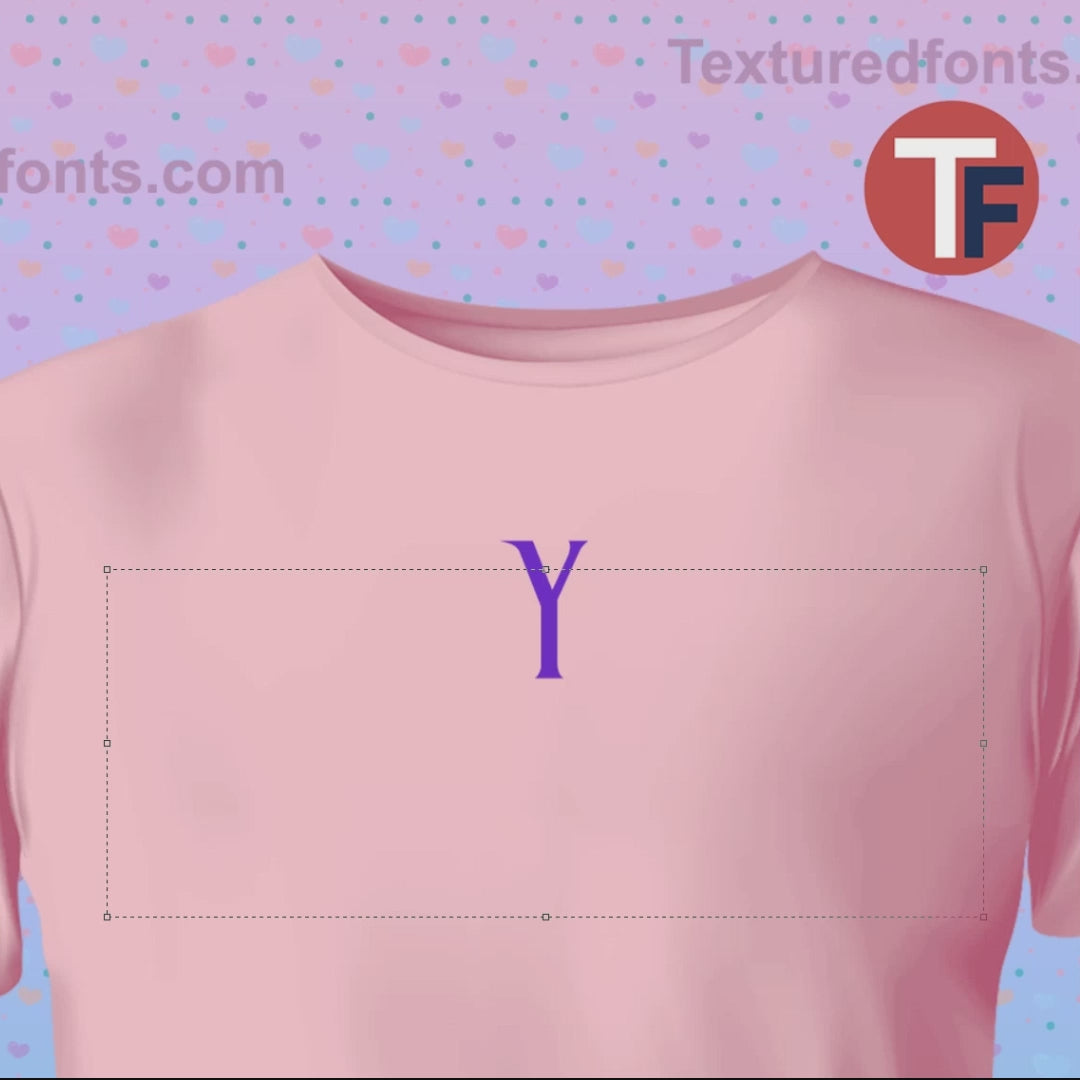
Mystical Chaos Font
Mystical Chaos Font: A Portal to Enchanted Design
Delve into the mystical with the Mystical Chaos font, inspired by the enchanting allure of ancient magic and sorcery. This typeface, reminiscent of arcane texts and eldritch symbols, is perfect for projects channeling the supernatural and the arcane. Whether crafting spellbinding visuals for fantasy media or creating enchanting event invitations, the Mystical Chaos font infuses every design with a touch of mystery. Each character is intricately designed to evoke old-world magic, combining sharp angles and flowing curves to mimic the unpredictable nature of sorcery. The complete character set ensures versatility, making it ideal for various applications—from book covers to digital content—where the mystical meets the modern.
Application and Customization
Mystical Chaos shines in various creative contexts:
- Fantasy Book Covers: Design captivating titles that draw readers into magical realms.
- Themed Party Invitations: Set the tone for magical gatherings or mystical events.
- Film and Theater Posters: Enhance promotional materials for productions steeped in the supernatural.
The Mystical Chaos font transforms textual elements into enchanting design features, making it a key tool for anyone exploring themes of magic and mystery in their creative projects.